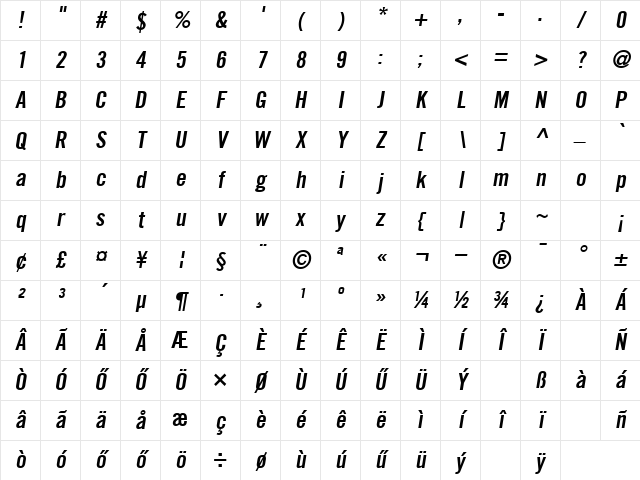
Huni_Trade Cn  BoldOblique Regular
Design Context for Huni_Trade Cn BoldOblique
Huni_Trade Cn BoldOblique is a composed and adaptable typeface that performs quietly and consistently across a wide range of design contexts. The slanted form adds forward momentum and visual energy. Its bold stroke weight gives it real presence on the page.
Pro Tip: Use Huni_Trade Cn BoldOblique for emphasis, pull quotes, and subheadings where its slanted energy can add rhythm to the layout.